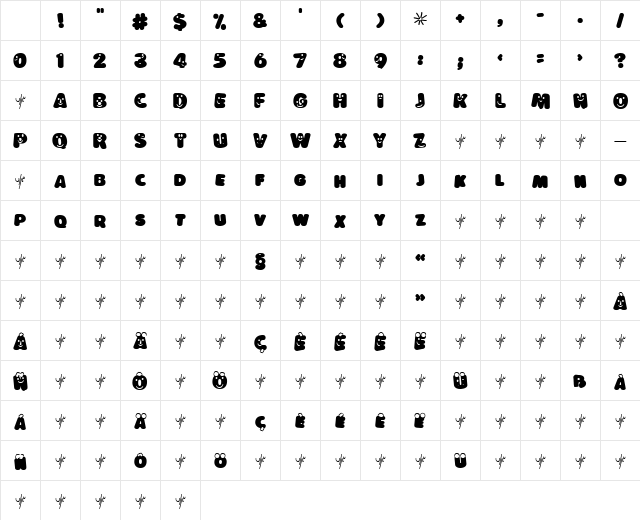
LoKinderSchrift Dunkel Free Font
LoKinderSchrift Dunkel
Style: Dunkel
Design Context for LoKinderSchrift
LoKinderSchrift is a composed and adaptable typeface that performs quietly and consistently across a wide range of design contexts.